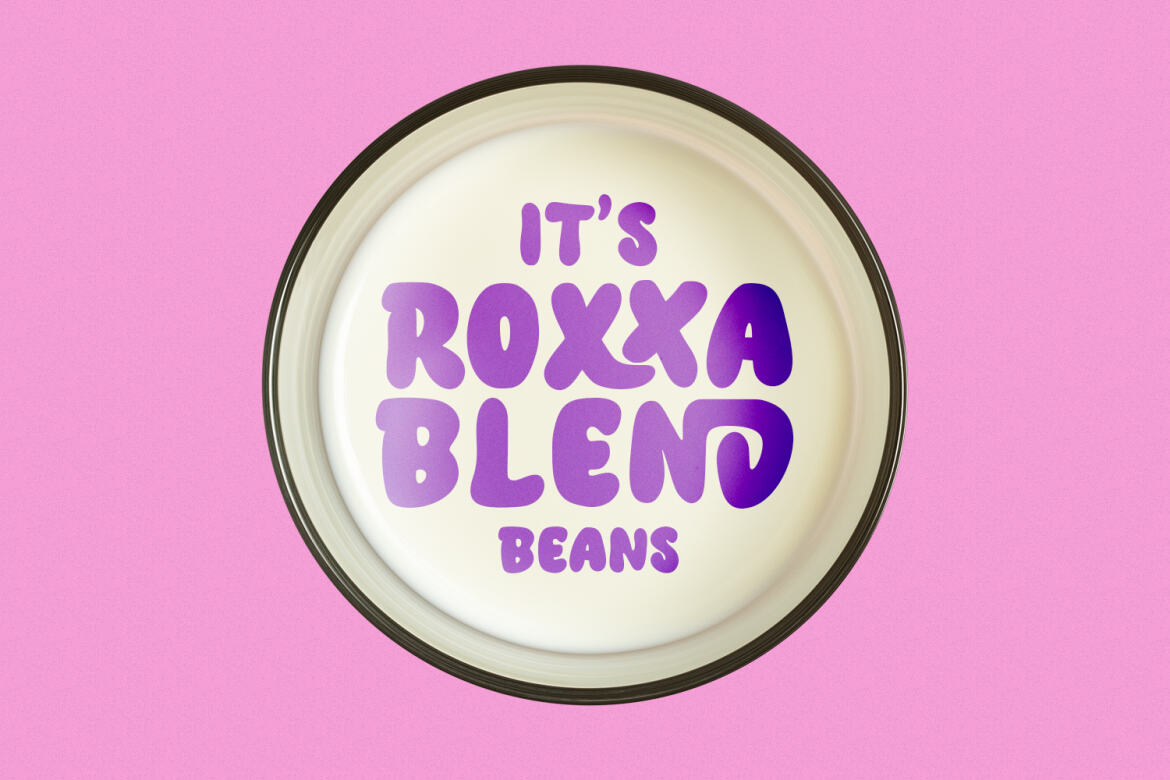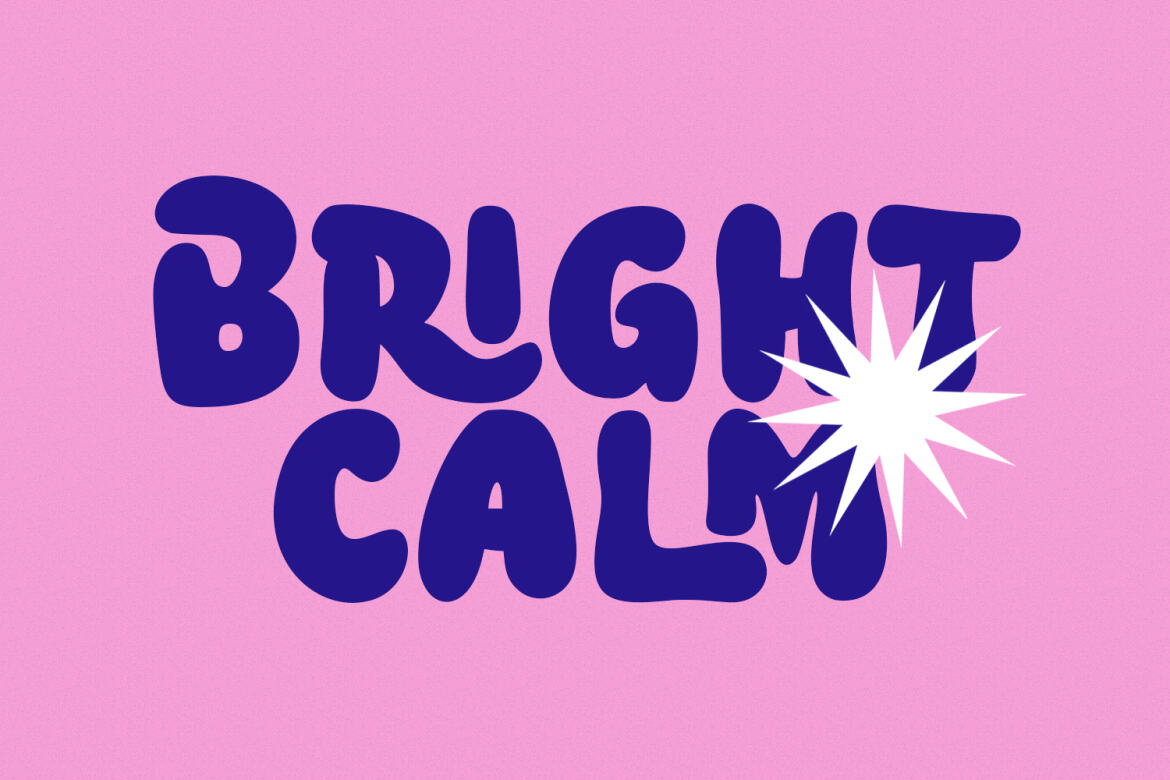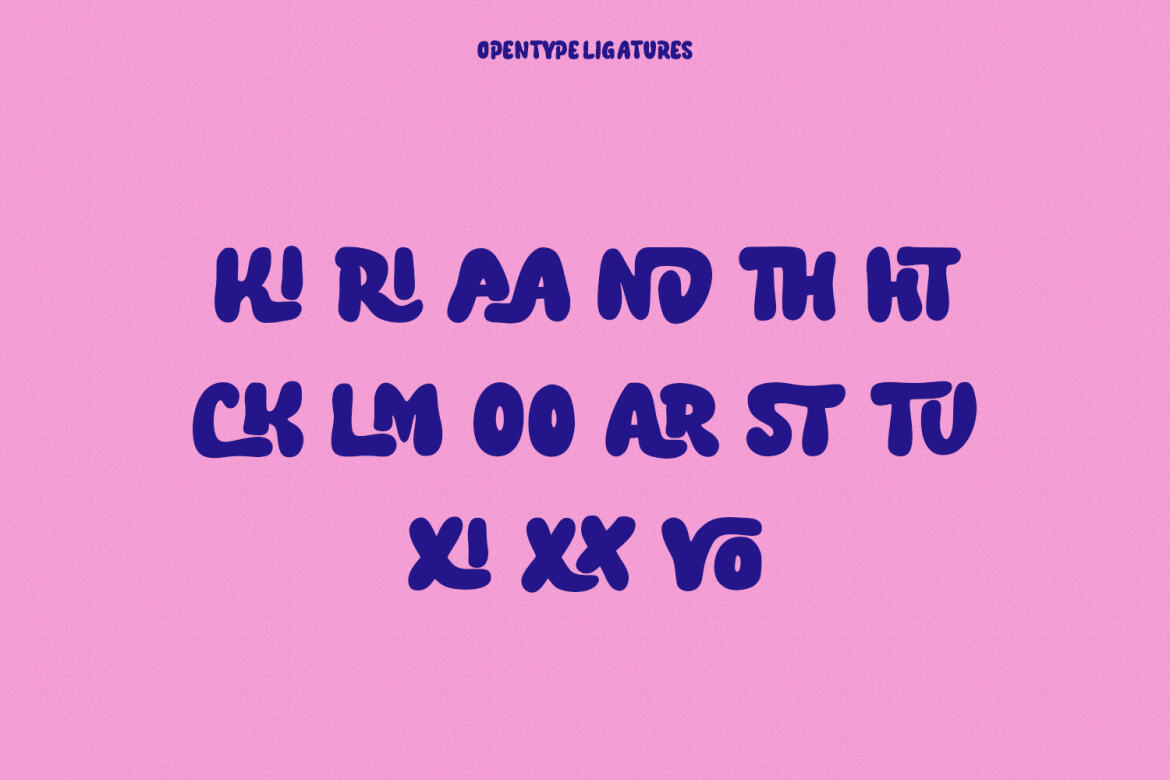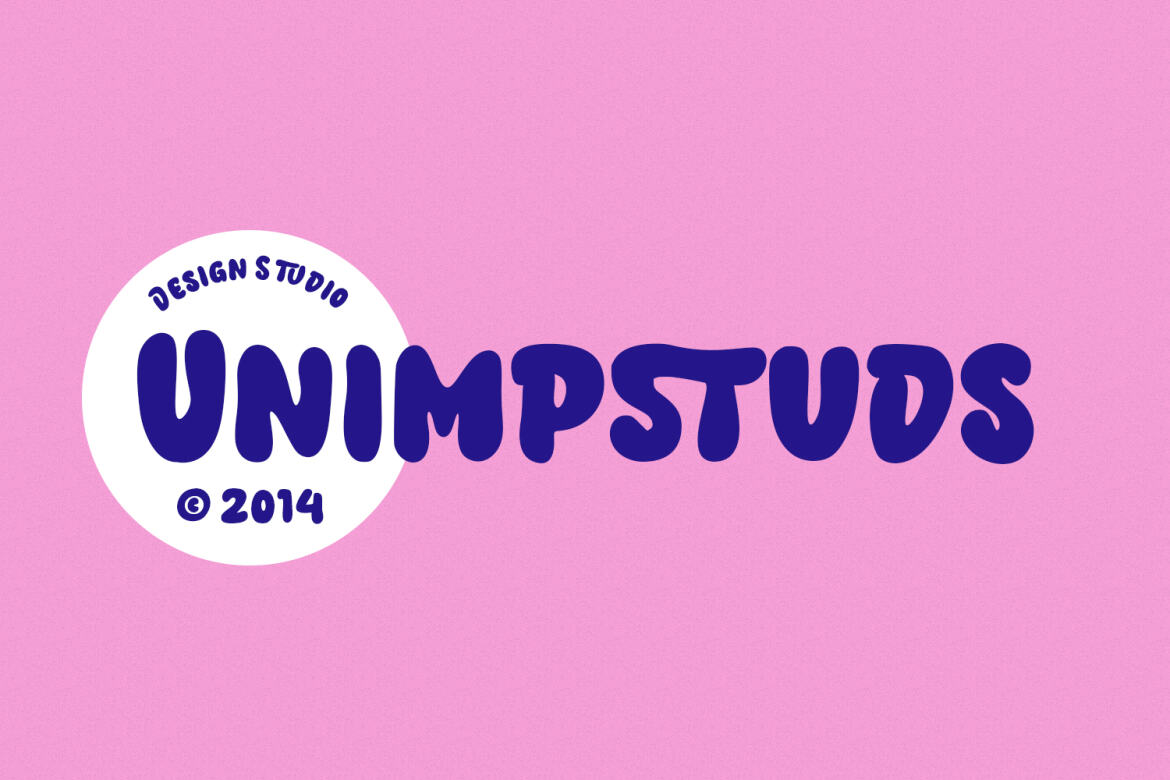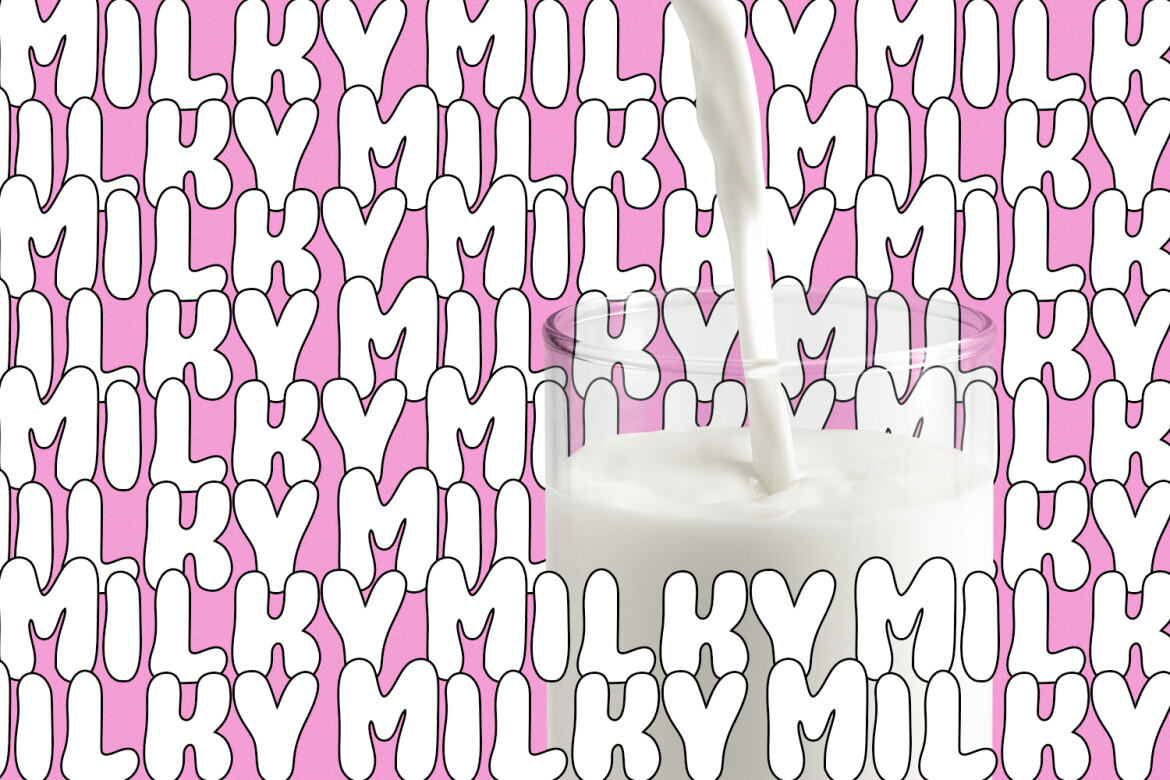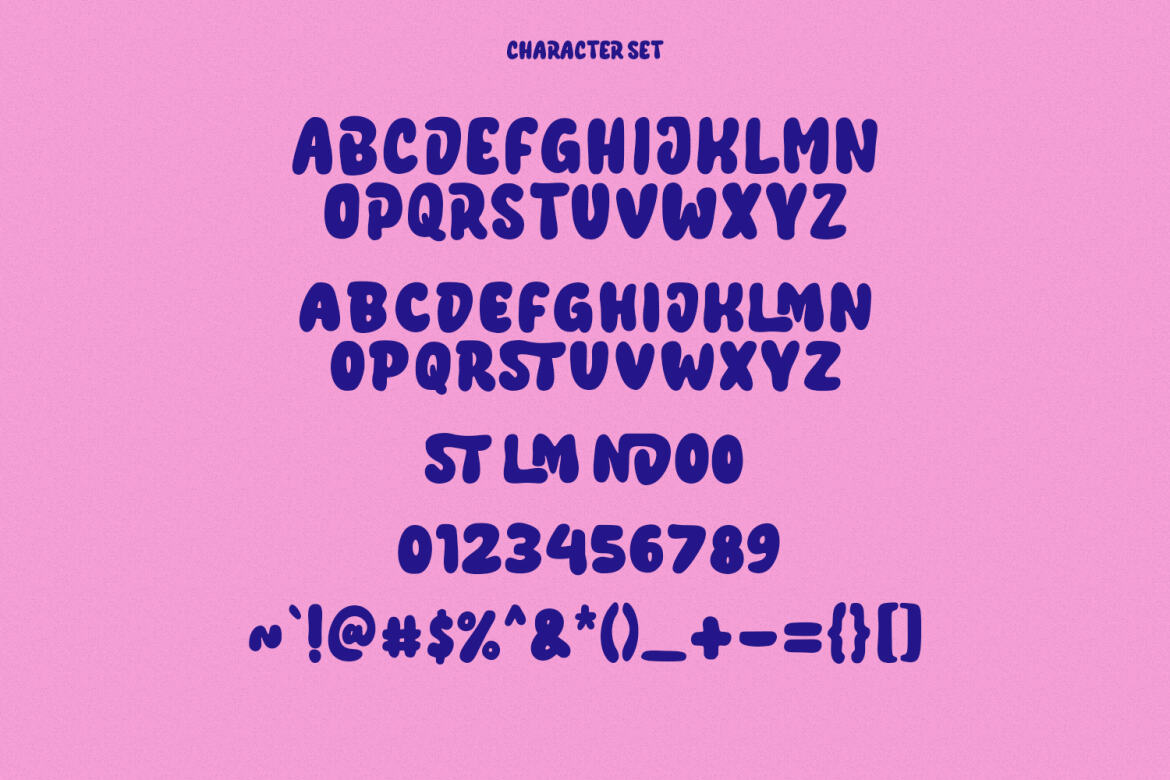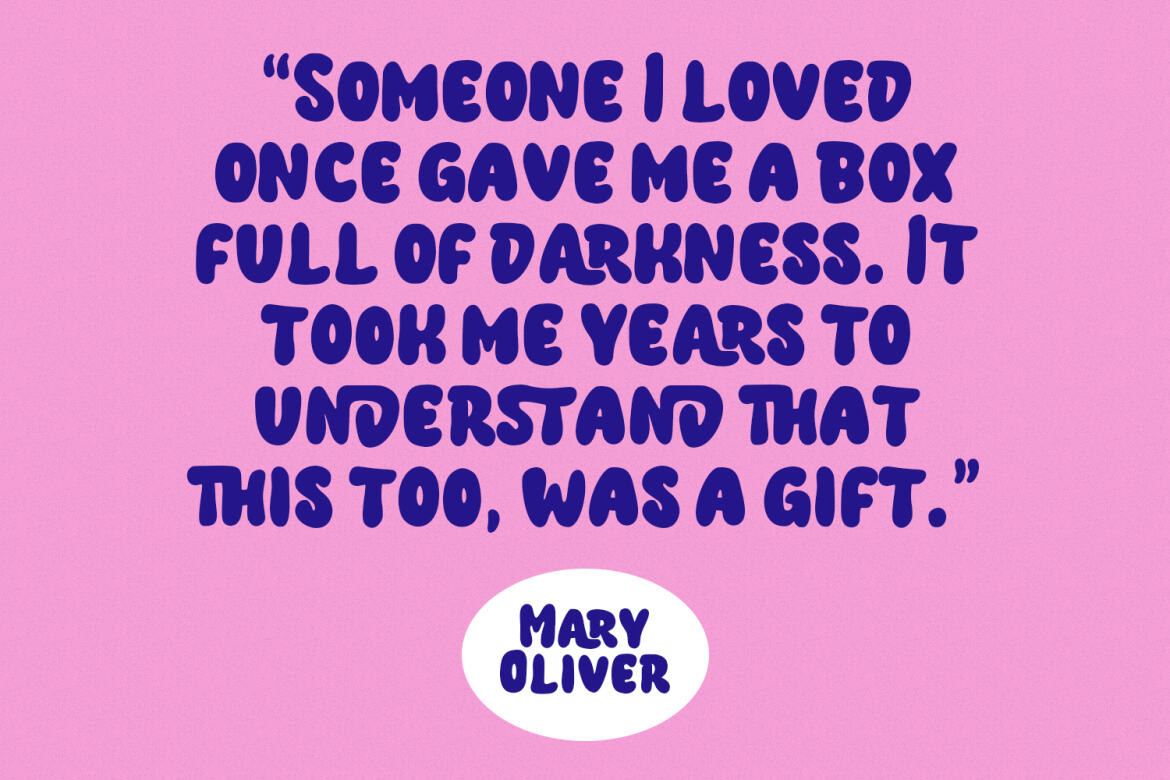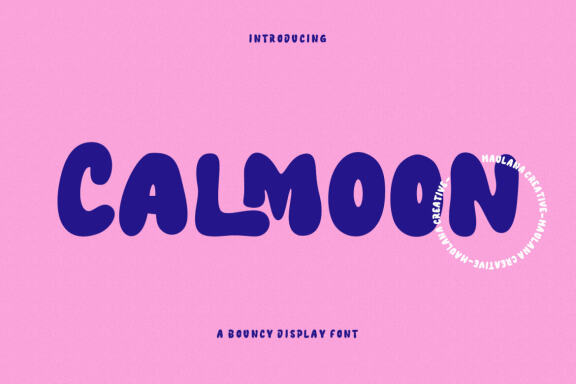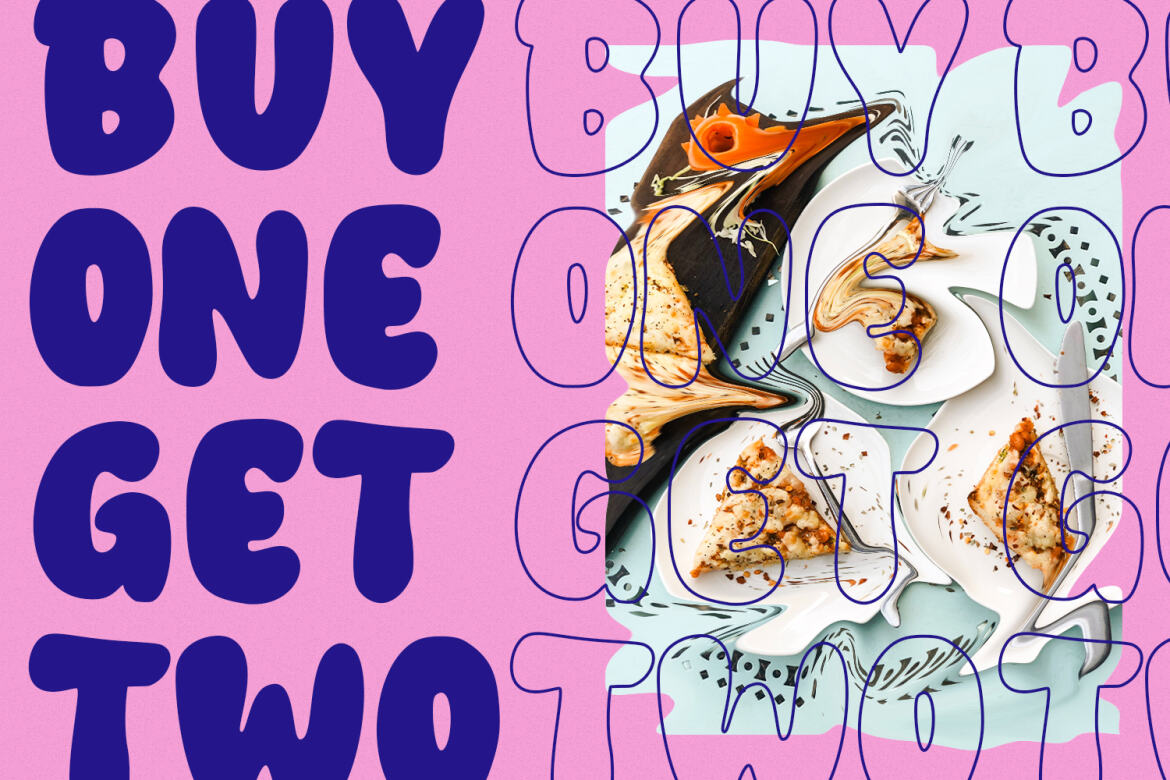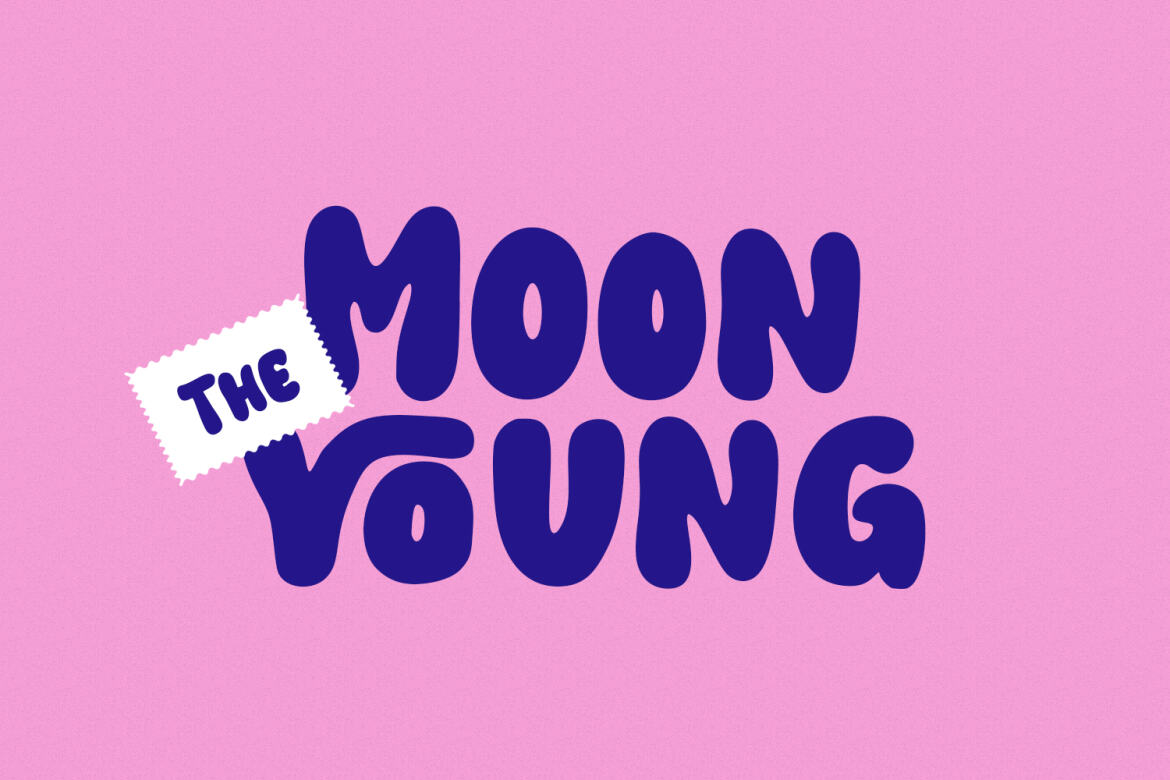
Calmoon Bouncy FREE Font
Calmoon
Calmoon is a bouncy handwritten display font. With bold bulb stroke, fun character with a bit of ligatures. To give you an extra creative work. Calmoon font support multilingual more than 100+ language. This font is good for logo design, Social media, Movie Titles, Books Titles, a short text even a long text letter and good for your secondary text font with sans or serif. Make a stunning work with Calmoon font.